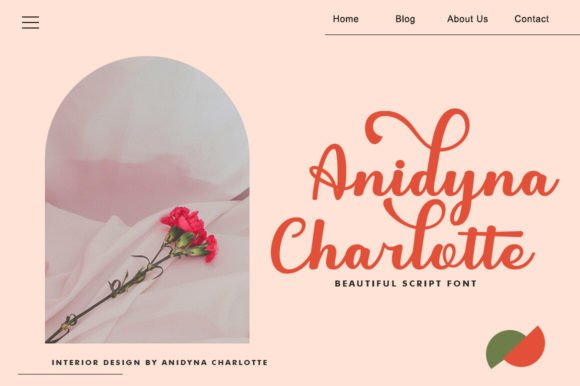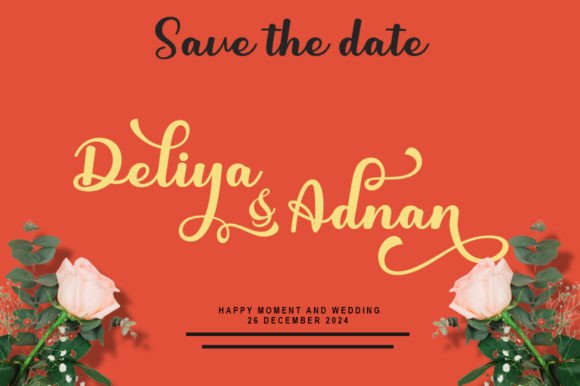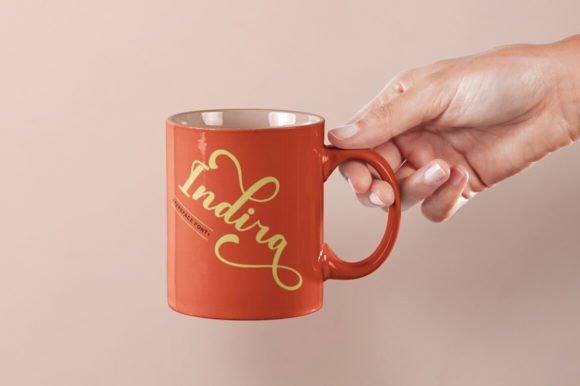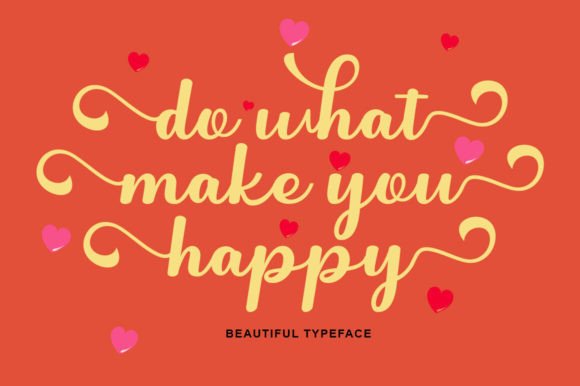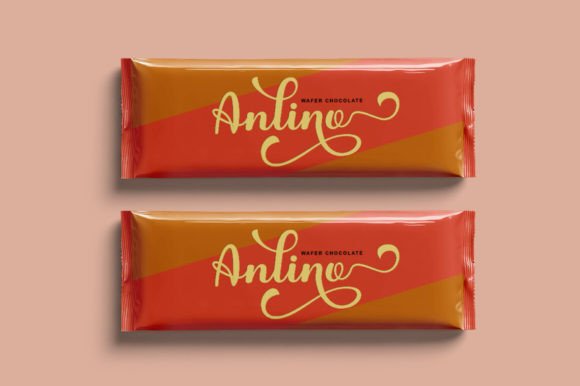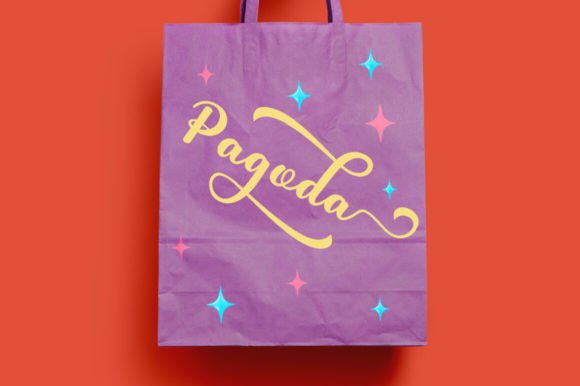
Adding a Personal Touch to Your Designs
As a designer, there’s nothing quite like the thrill of creating something new and unique. Whether it’s a custom invitation for a special occasion or a brand identity that reflects a company’s personality, the right font can make all the difference. For those looking to add a touch of elegance and whimsy to their designs, the Angolina Font is a game-changer.
This beautiful script font has a soft, handwritten style that’s perfect for creative projects that need a personal touch. With its flowing curves and gentle lines, Angolina Font adds a sense of sophistication and refinement to any design. And for designers, its value lies in its versatility – it’s just as at home on a wedding invitation as it is on a business card or website header.
Whether you’re a seasoned pro or just starting out, the Angolina Font is a must-have addition to your design toolkit.
- Unique Characteristics: The font features a unique blend of geometric and organic elements, creating a distinctive aesthetic that is both modern and elegant.
Designer Review: Angolina Font
Overall, I found the Angolina font to be a visually appealing and elegant choice for various design projects. ✨ Its classic and sophisticated design makes it perfect for high-end branding, luxury products, or any project where you want to convey a sense of refinement and sophistication.
One of the standout features of Angolina is its excellent legibility, making it easy to read even at smaller font sizes. ✨ Additionally, the font has a wide range of weights and styles, allowing for flexibility in terms of design and layout.
However, I did encounter some limitations when using Angolina. ⚠️ For instance, the font may not be the best choice for body text in longer documents or articles, as it can become tiring to read when used extensively. ⚠️ Furthermore, the font’s aesthetic may not be suitable for modern or edgy designs, as it has a distinctly vintage feel.
- ✨ Excellent legibility
- ✨ Wide range of weights and styles
- ⚠️ May not be suitable for body text in longer documents
- ⚠️ May not be suitable for modern or edgy designs
Overall, I would recommend the Angolina font for projects where a classic and sophisticated design is desired. While it may have some limitations, its strengths make it a valuable addition to any designer’s toolkit.
For a more polished look, pair Angolina Font with a bold or italic font to create contrast.
For a more creative look, experiment with layer styles and effects to enhance the Angolina Font.
For a more professional look, pair Angolina Font with a clear and concise font to create a clean and easy-to-read design.
Angolina Font is perfect for:
- Vintage-inspired designs
Remember to experiment with different font sizes and styles to create a unique and eye-catching design.
Alternatives to Angolina Font
Montserrat is a modern sans-serif font that is perfect for digital interfaces and applications. It’s highly legible and versatile, making it suitable for a wide range of designs, from logos to body text. Compared to Angolina Font, Montserrat has a more geometric and structured feel, with a focus on clean lines and minimal ornamentation.
Lato is a sans-serif font that is designed to be highly readable and versatile. It’s a great choice for body text, headings, and titles, and is particularly well-suited for digital designs. Compared to Angolina Font, Lato has a slightly more rounded and friendly feel, with a focus on comfort and approachability.